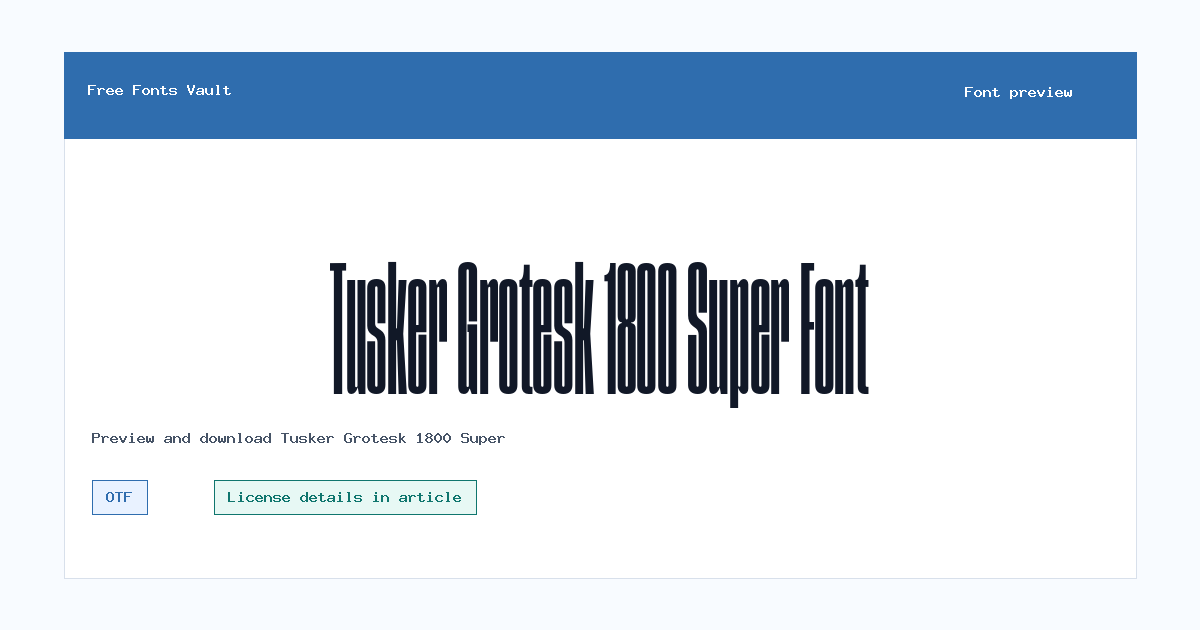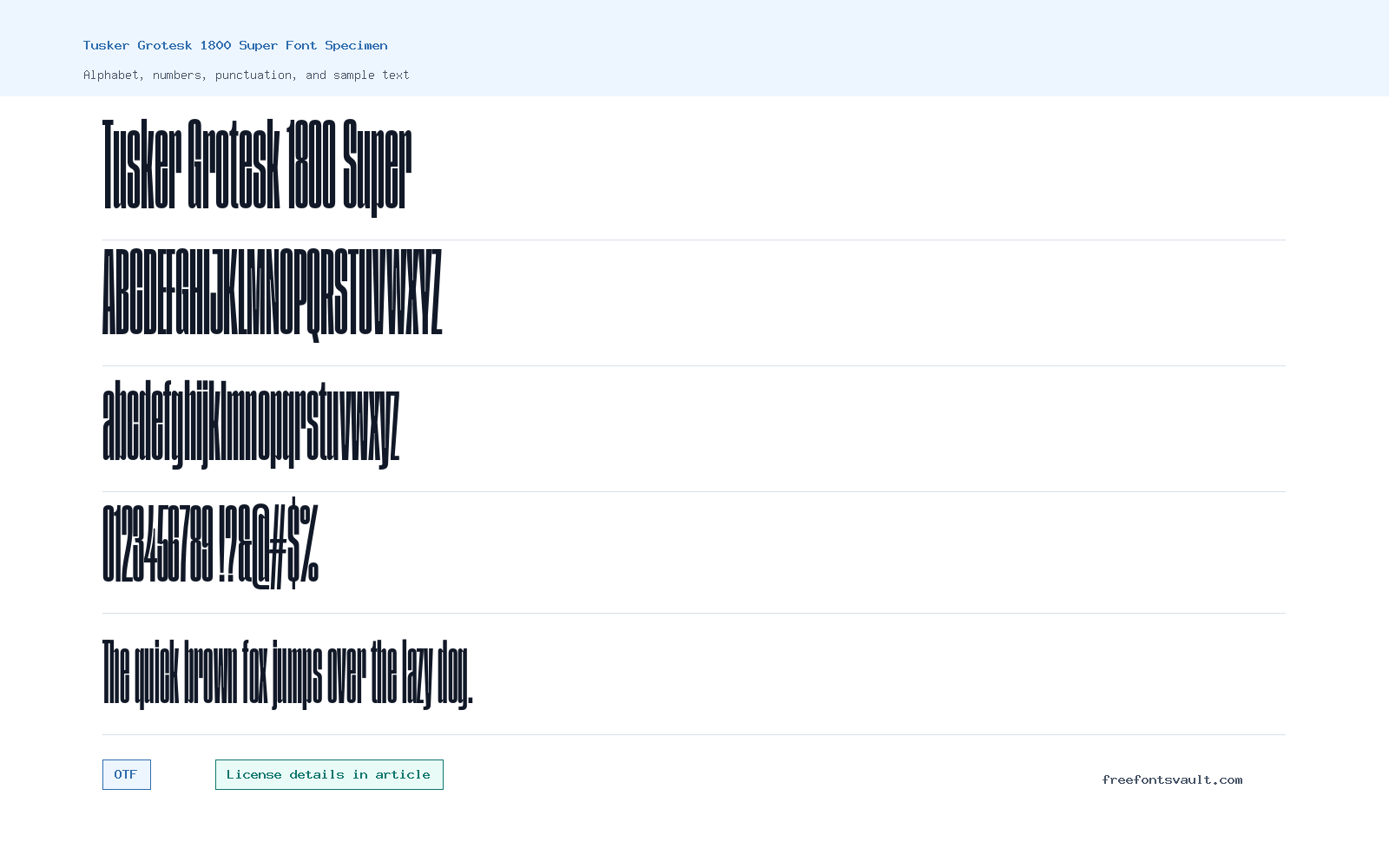
Tusker Grotesk 1800 Super
Tusker Grotesk 1800 Super font preview showing the family name
Tusker Grotesk 1800 Super Font
Tusker Grotesk 1800 Super font specimen showing alphabet, numbers, and sample text
• Designer Lewis McGuffie
• Foundry Lewis McGuffie
Tusker Grotesk 1800 Super font.
Tusker Grotesk 1800 Super is a heavy display sans-serif built for short, forceful text. Its tall, dense letterforms make it useful when you need a headline to take up space without feeling decorative.
About Tusker Grotesk 1800 Super
Tusker Grotesk 1800 Super belongs to the Tusker Grotesk family by Lewis McGuffie Type. The 1800 Super style is one of the family’s heavier options, with a compact grotesque look that works best at larger sizes. It is a strong choice for posters, cover titles, banners, social graphics, and other places where a few words need clear visual weight.
Use the preview box to test the exact wording you plan to set. This style is better for names, labels, short headlines, and bold display lines than for long paragraphs. Because the letters are heavy and close in tone, give it enough spacing and contrast against the background. If you are using it with another font, pair it with a simpler text face for body copy so the layout stays easy to read.
• Heavy grotesque sans-serif style suited to display typography
• Part of the larger Tusker Grotesk family, which is listed with 30 styles
• Works best for short text, headlines, posters, banners, and title treatments
• Poster headlines and event graphics
• Website hero titles and large landing-page text
• Brand mockups, packaging studies, and editorial display type
• Social media images, thumbnails, and bold quote layouts
Tusker Grotesk 1800 Super is credited to Lewis McGuffie Type. The local font information also names Lewis McGuffie as the author/foundry contact.
Who designed Tusker Grotesk 1800 Super?
The Tusker Grotesk family is credited to Lewis McGuffie and published by Lewis McGuffie Type.
What kind of font is Tusker Grotesk 1800 Super?
It is a heavy grotesque sans-serif display font, best used for large headlines and short pieces of text.